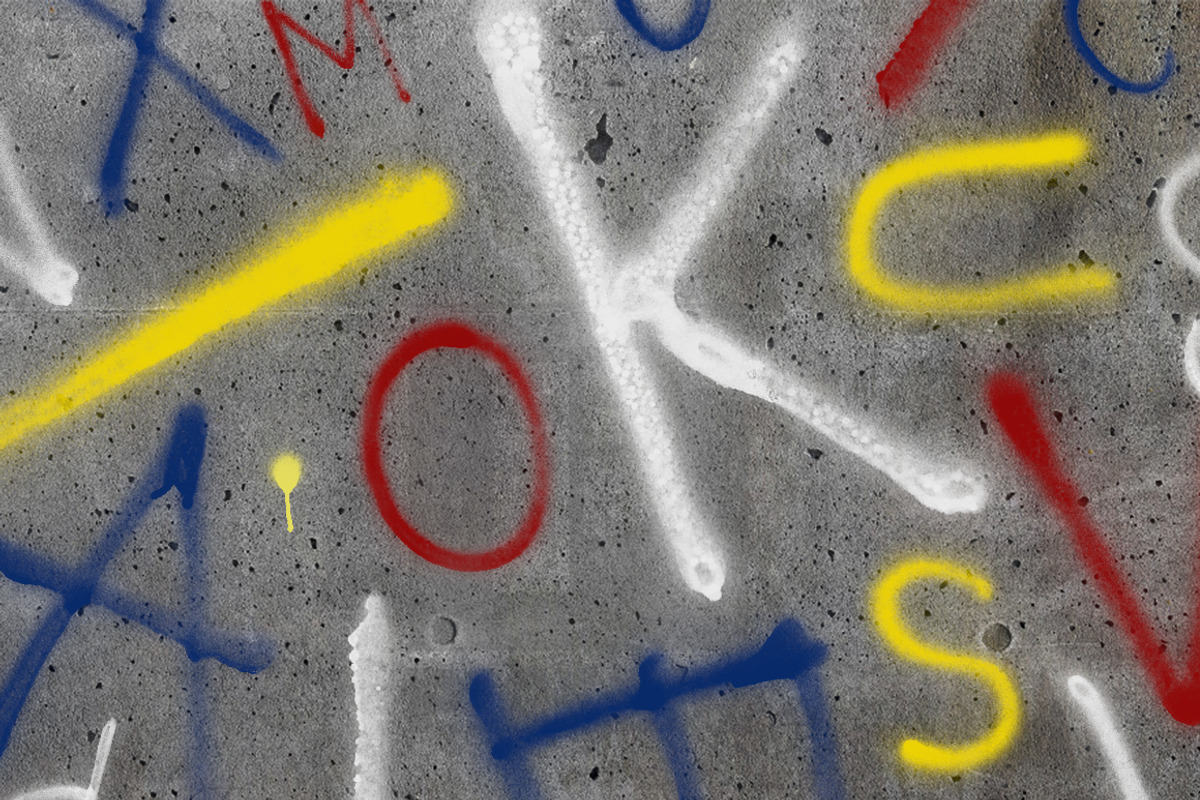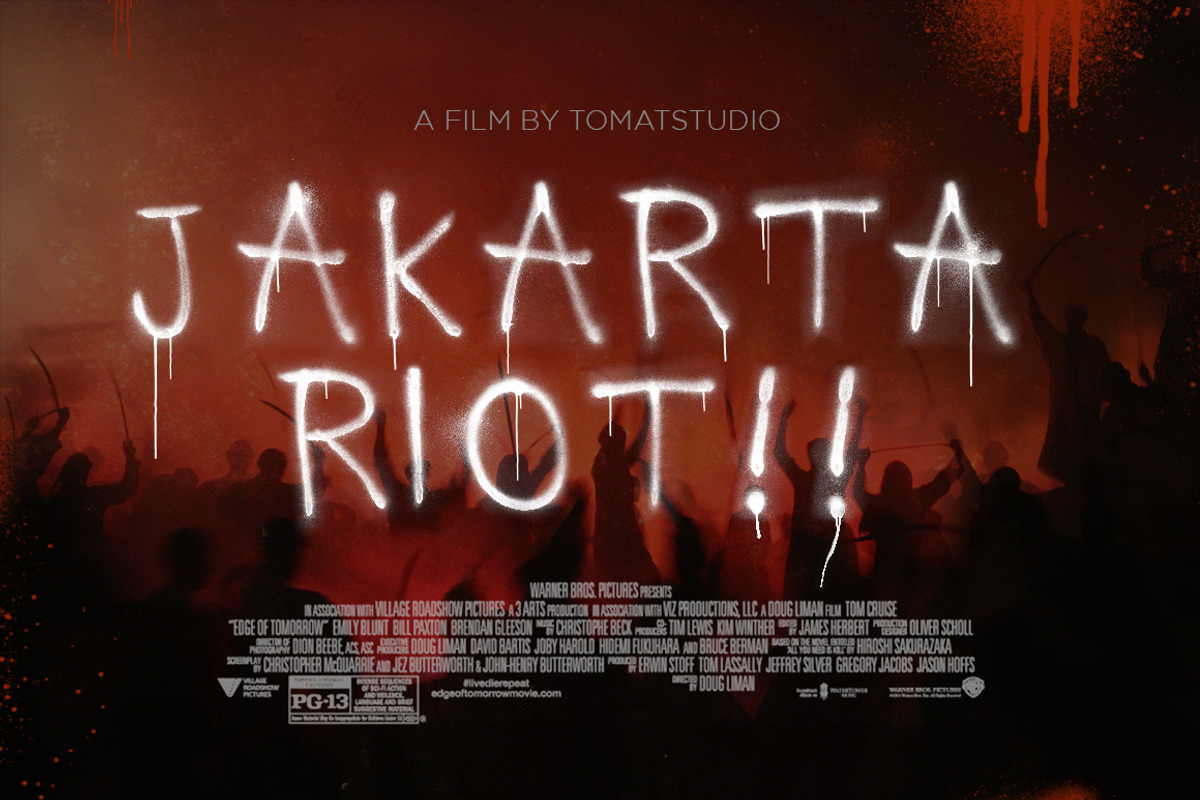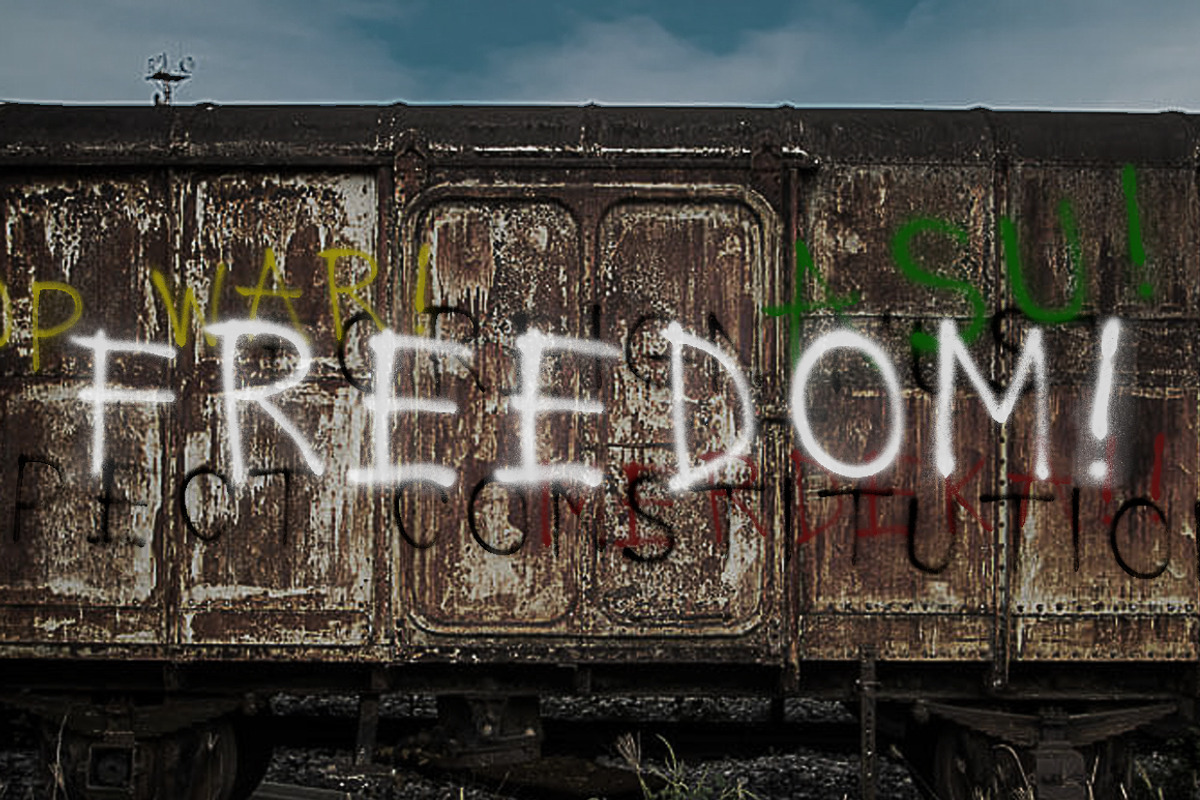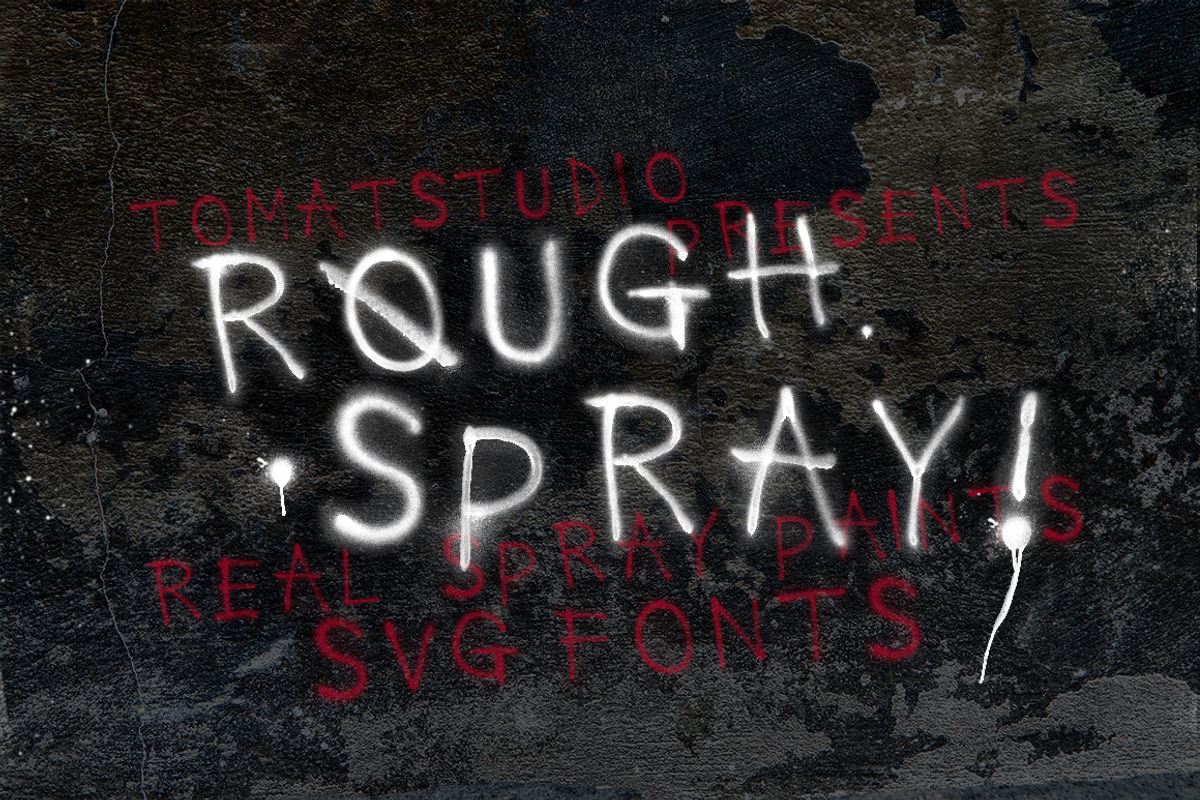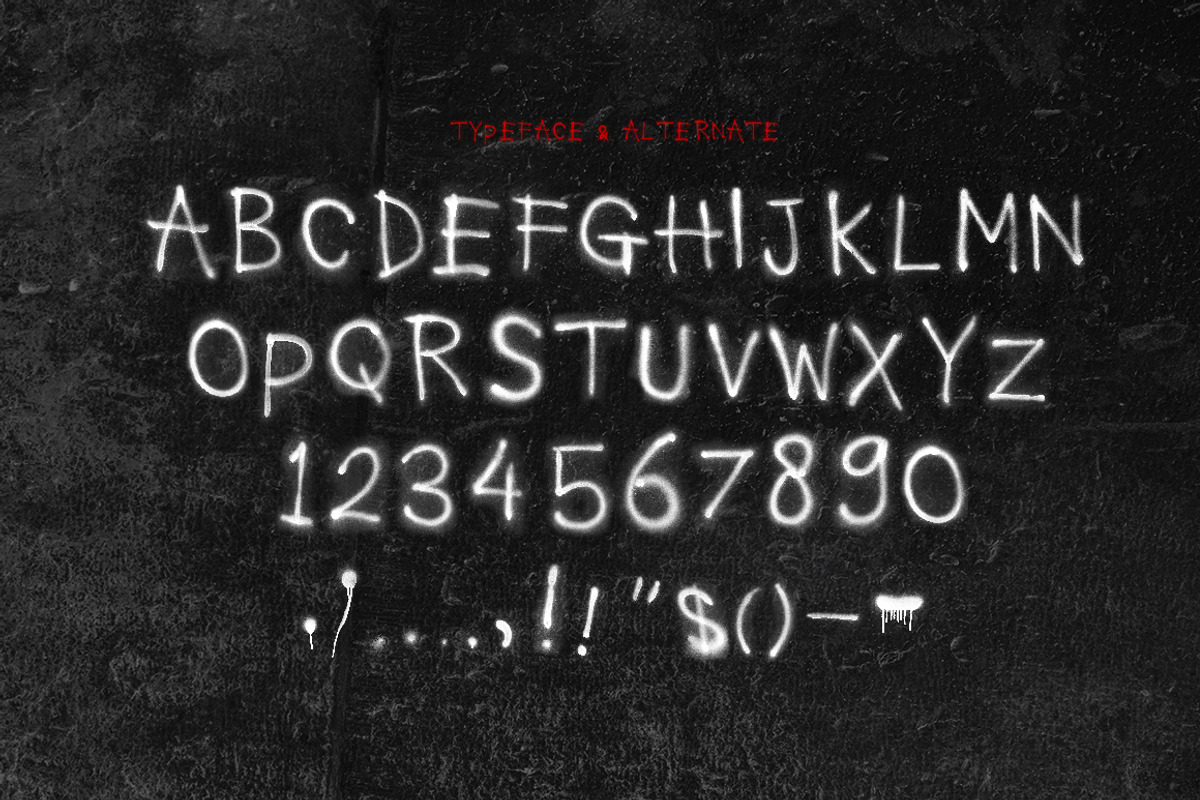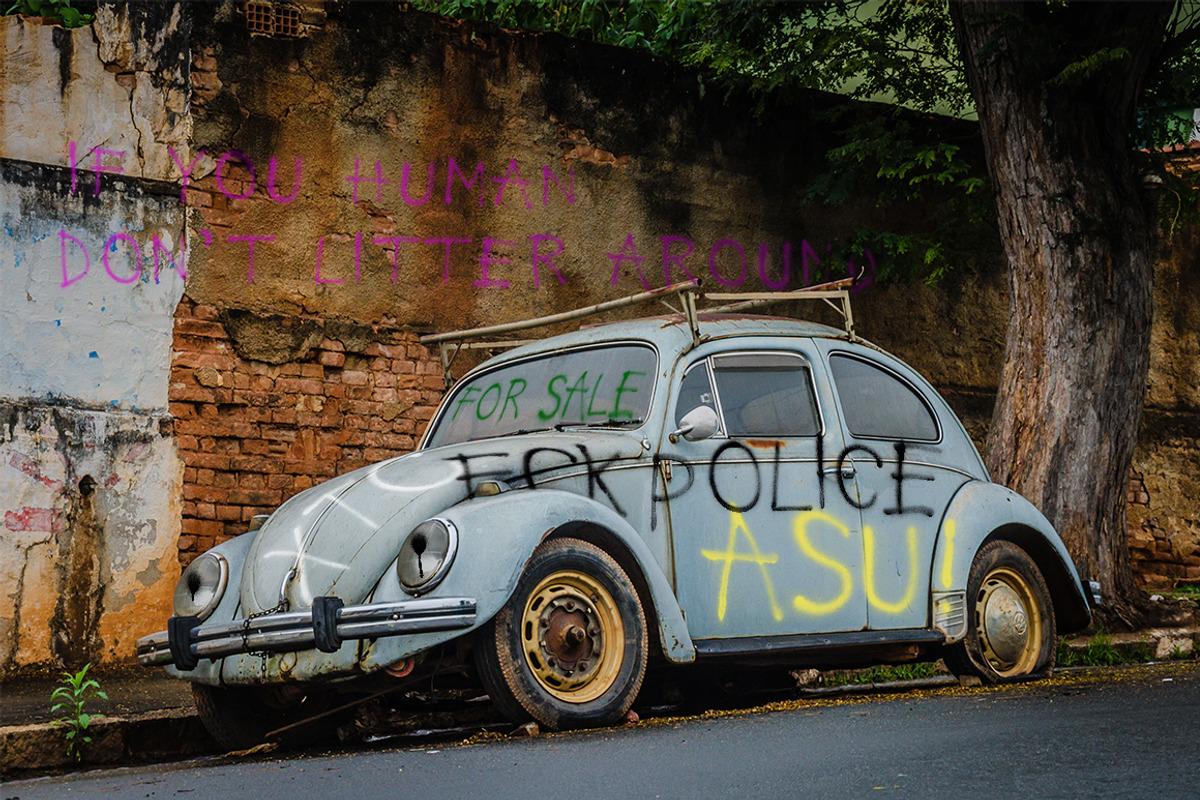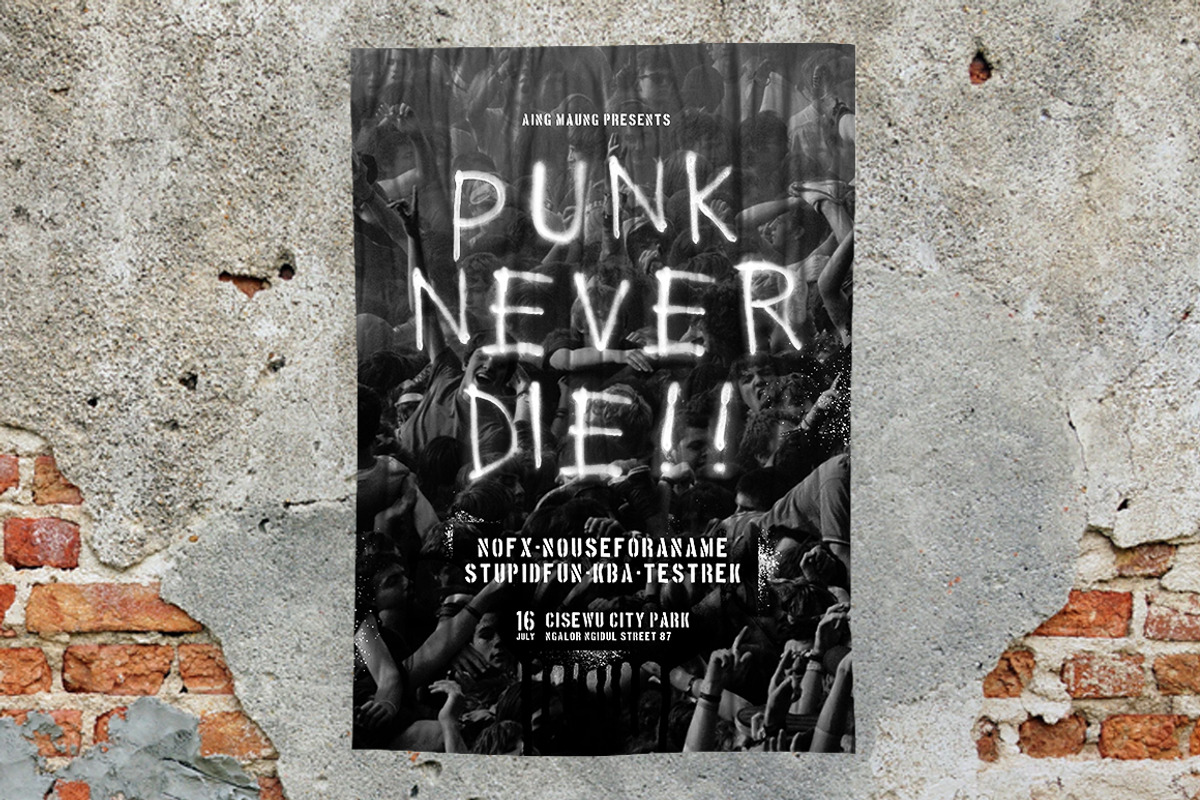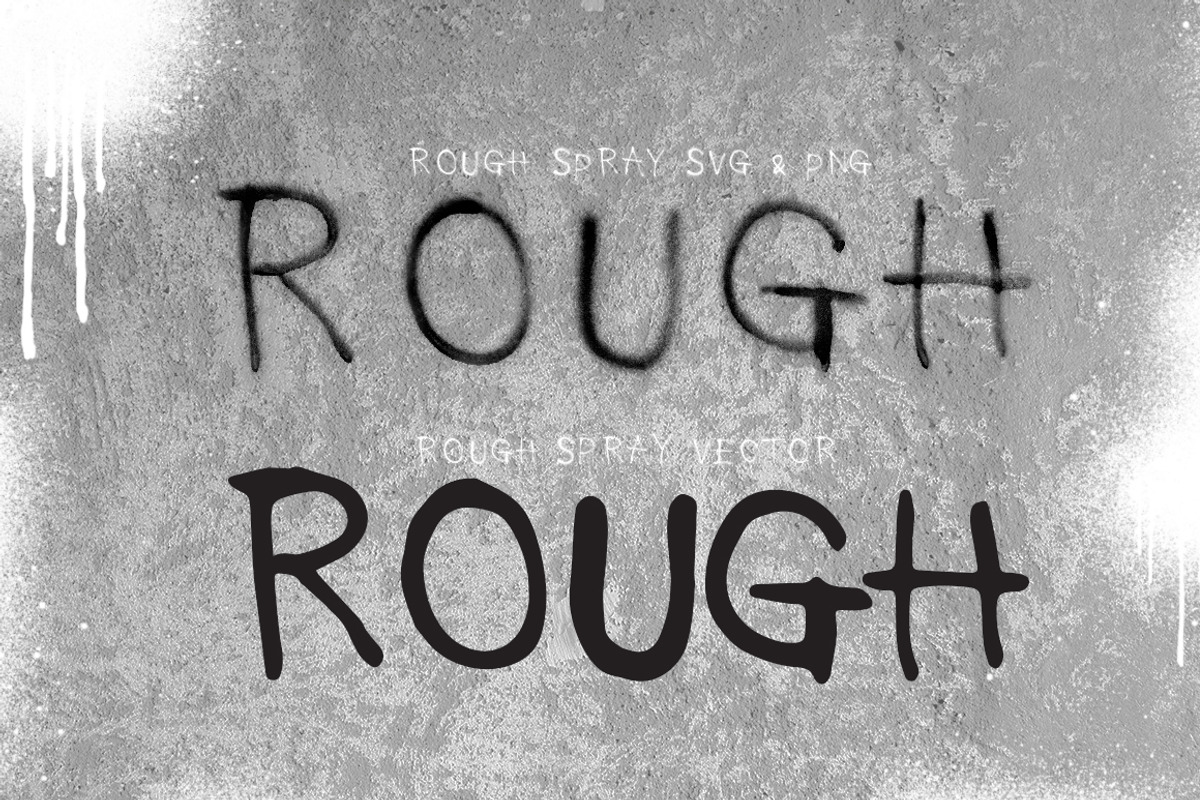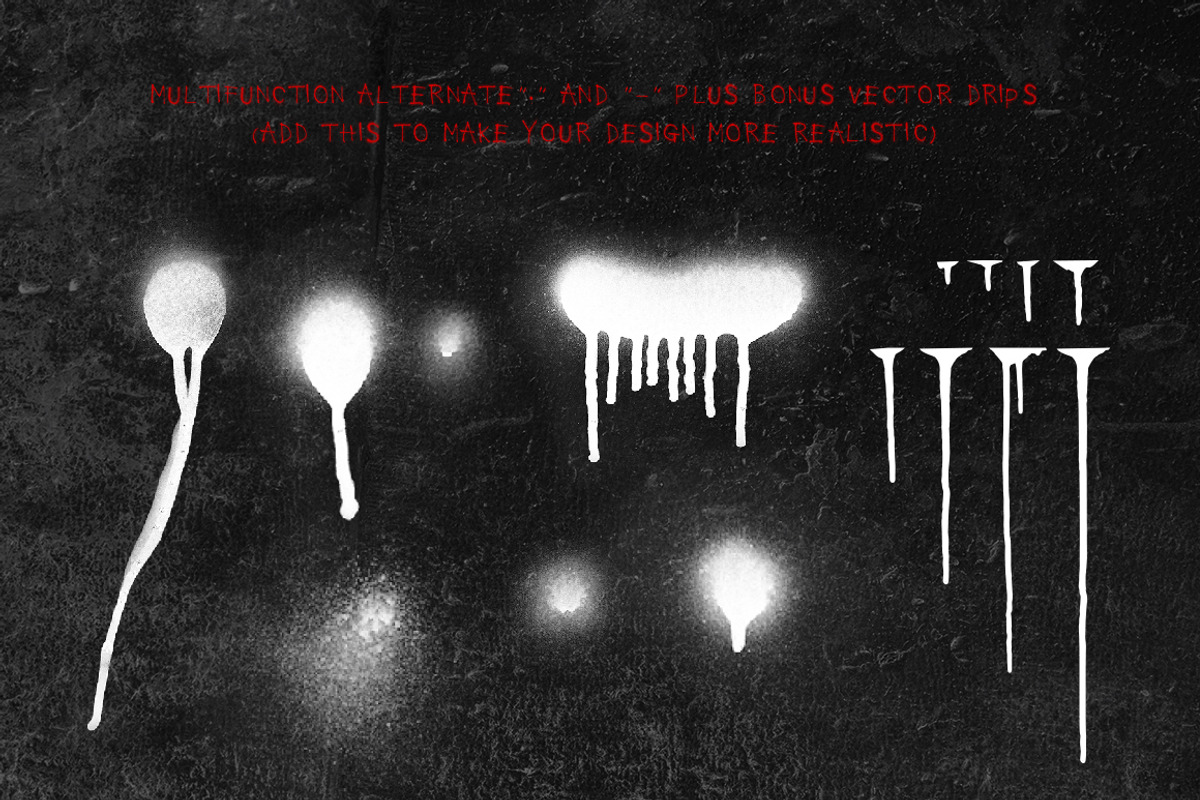
Rough Spray SVG typeface
Rough Spray SVG is a real spray paint typeface, i'm using real spray can and thick paper to create this fonts and convert this one into SVG fonts. If you looking for realistic spray paint alphabet this is the answer, i'm not using digital brush at all. Perfect for your "grunge" and "rebel" style look! easy to applicable with SVG fonts. Make your design realistic with alternate ".","-" and the drips bonus files, you can see the sample.